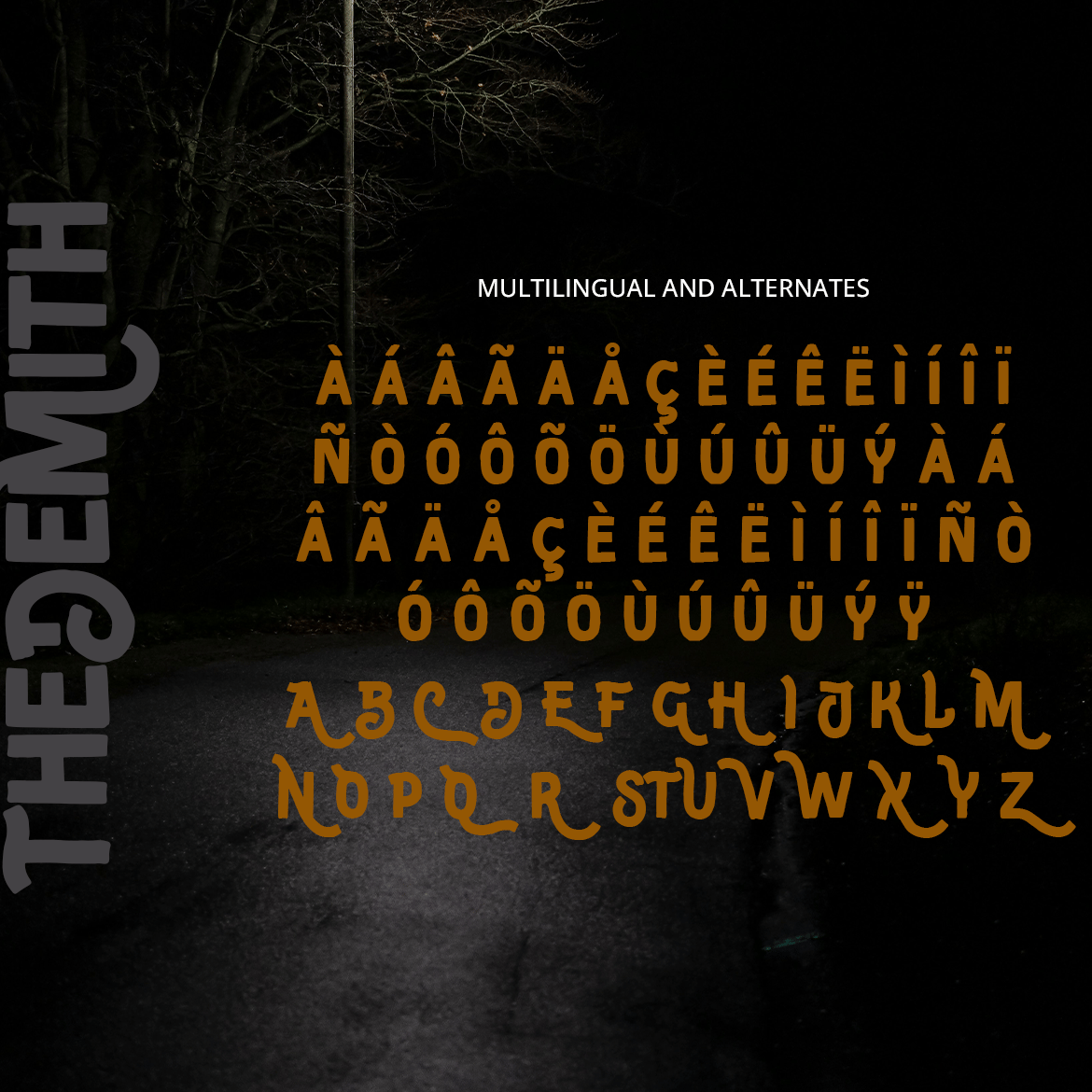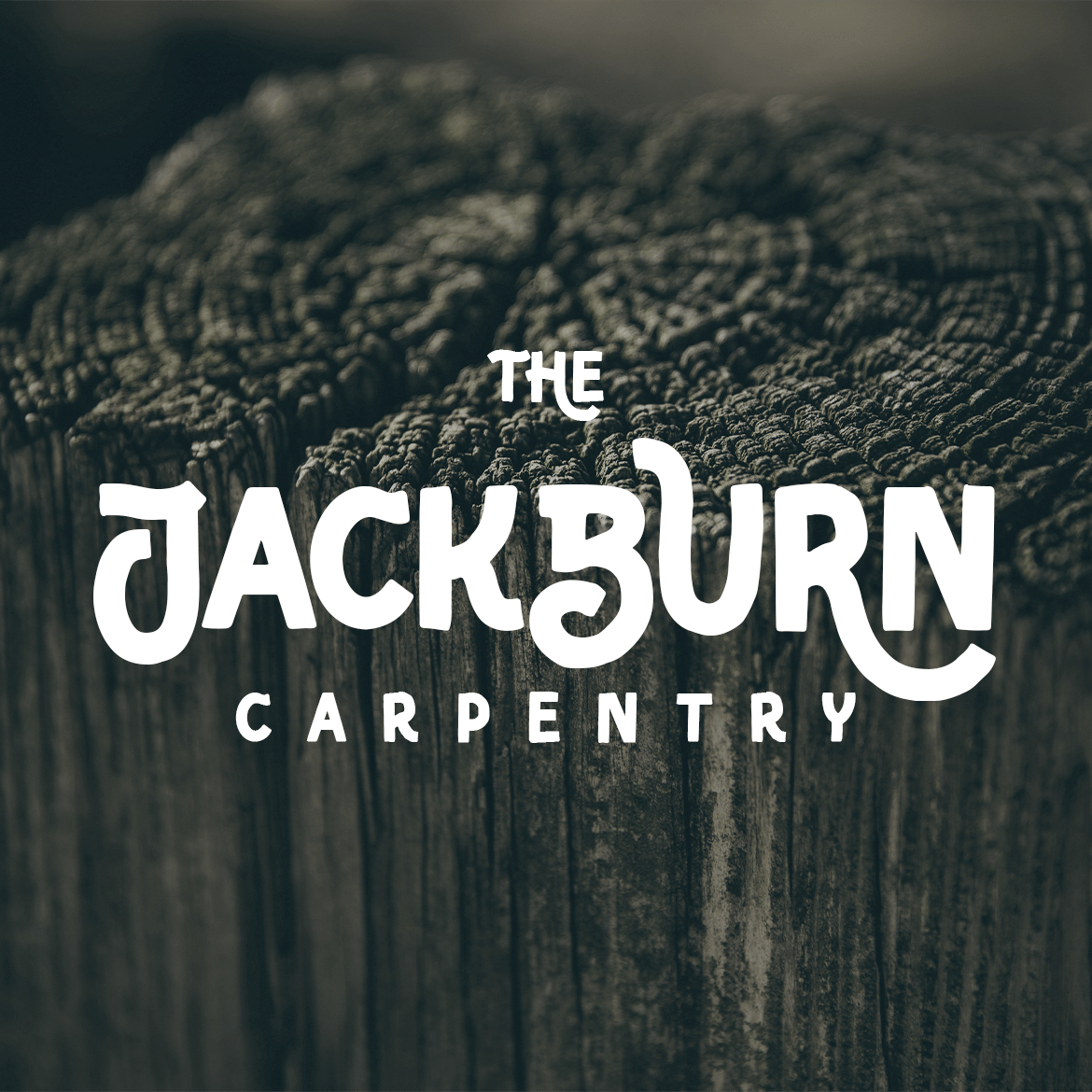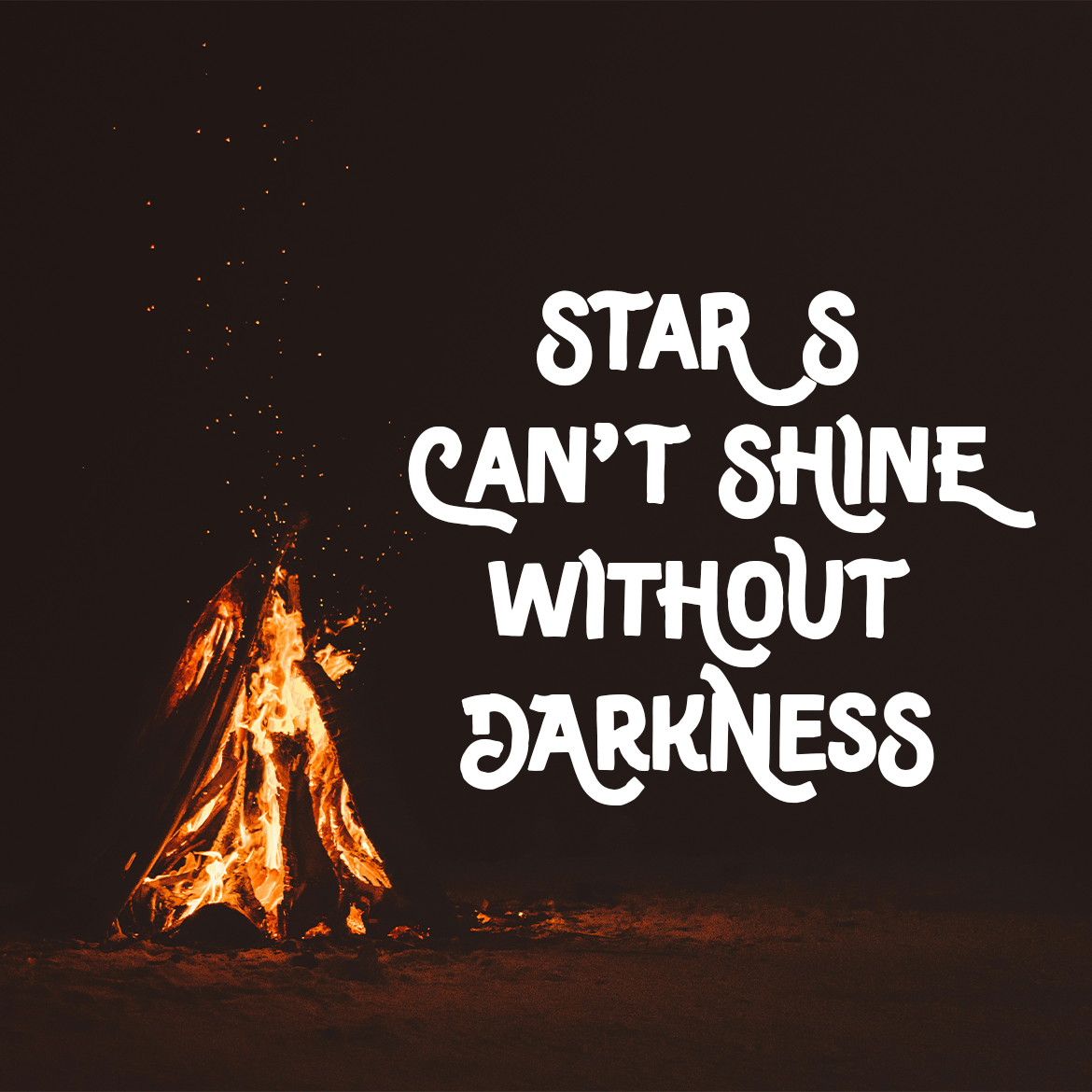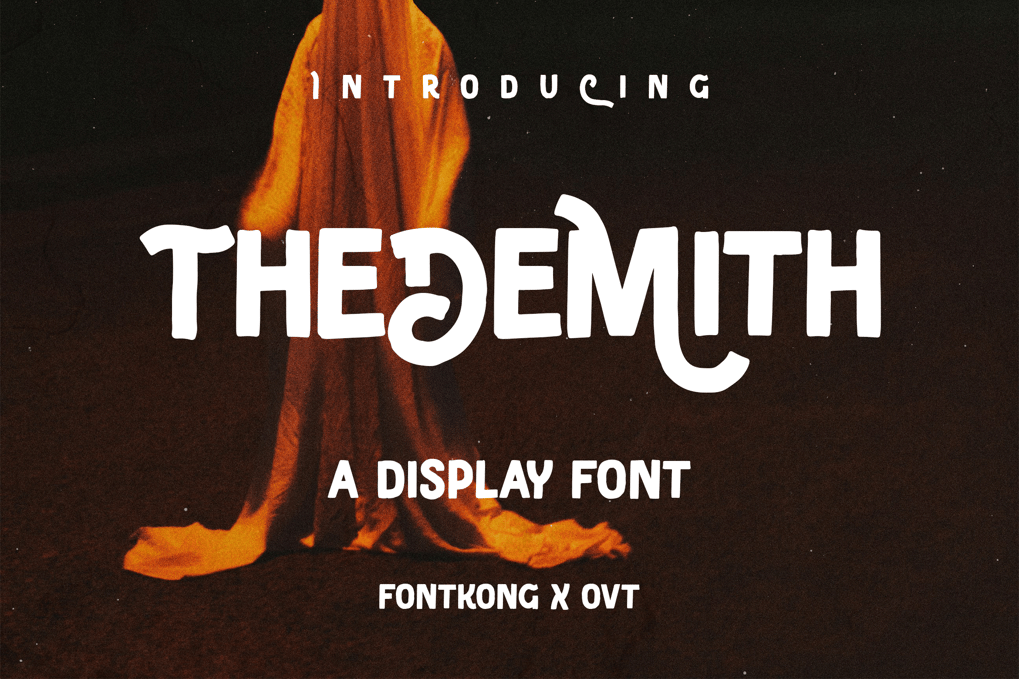
Thedemith – A Display Font
Crafted with precision, Thedemith features well-defined characters that offer excellent readability and visual prominence. Its display-oriented design makes it ideal for high-visibility applications, providing a robust and engaging presence. The font’s versatility allows it to adapt seamlessly to various design contexts, from digital media to printed materials, making it a valuable asset for any designer aiming to create bold and compelling visuals.